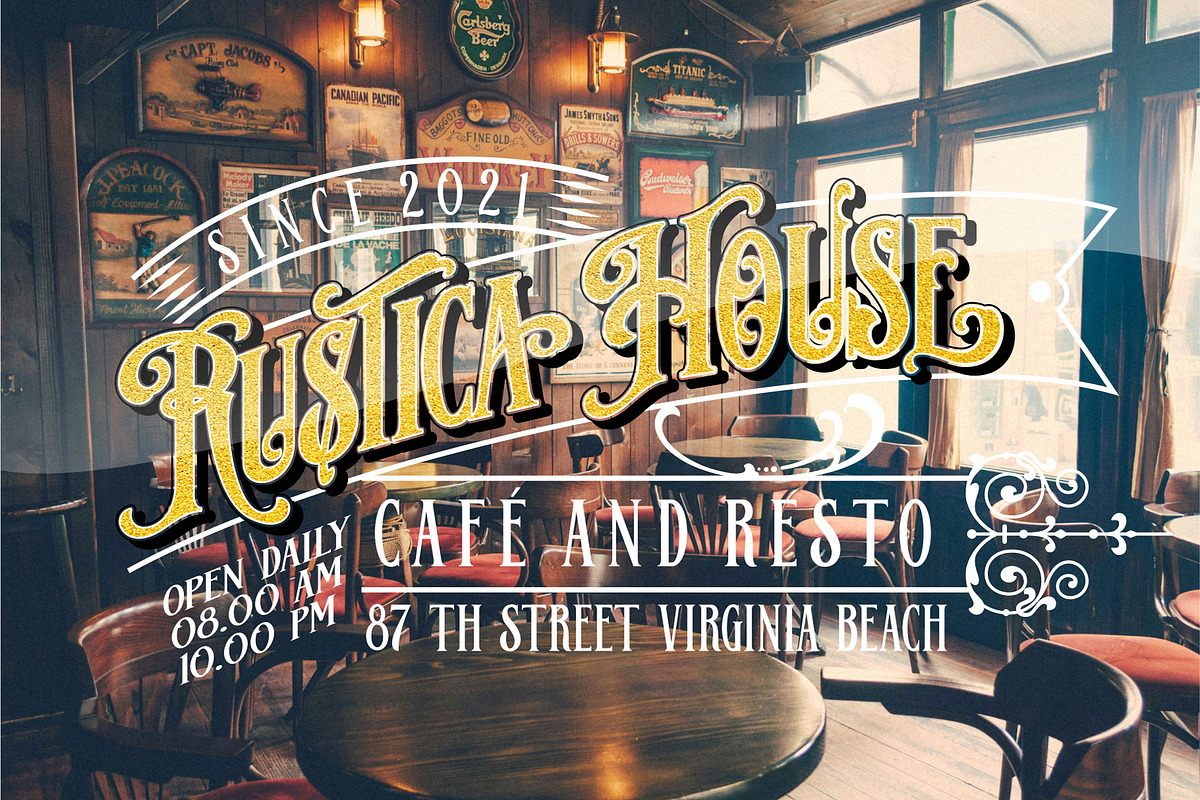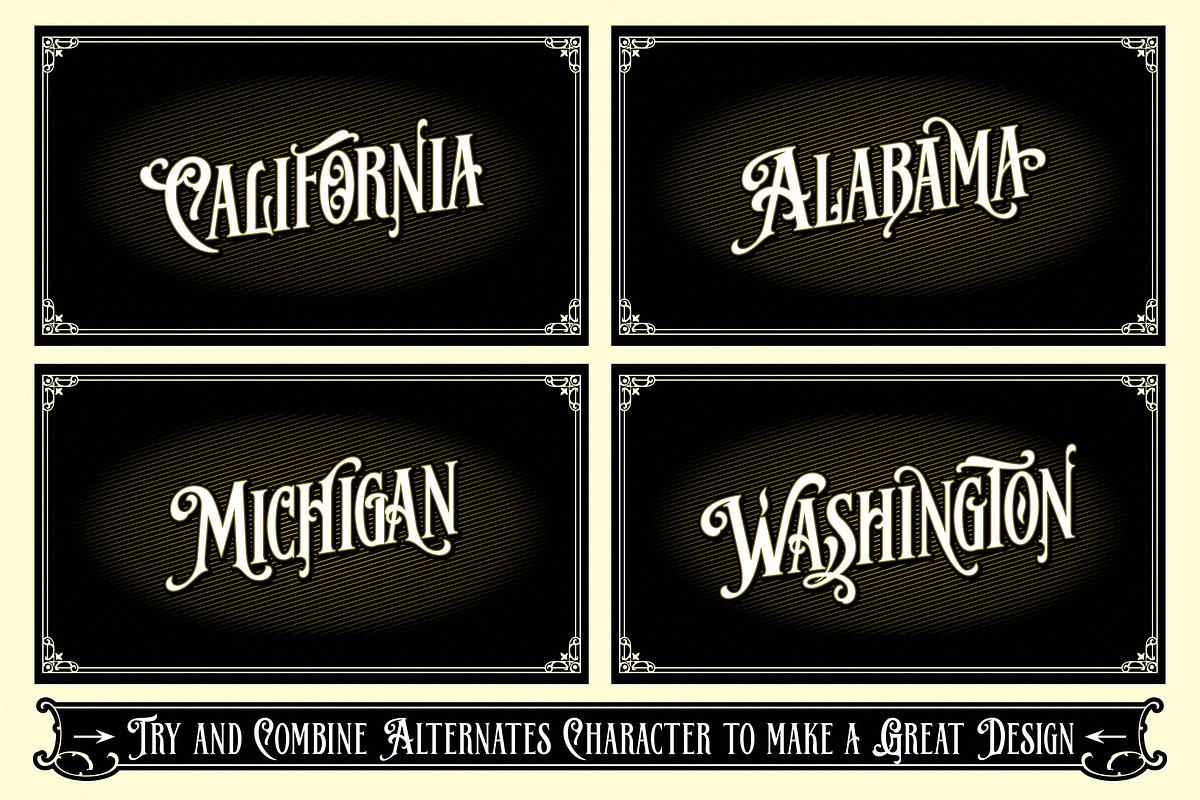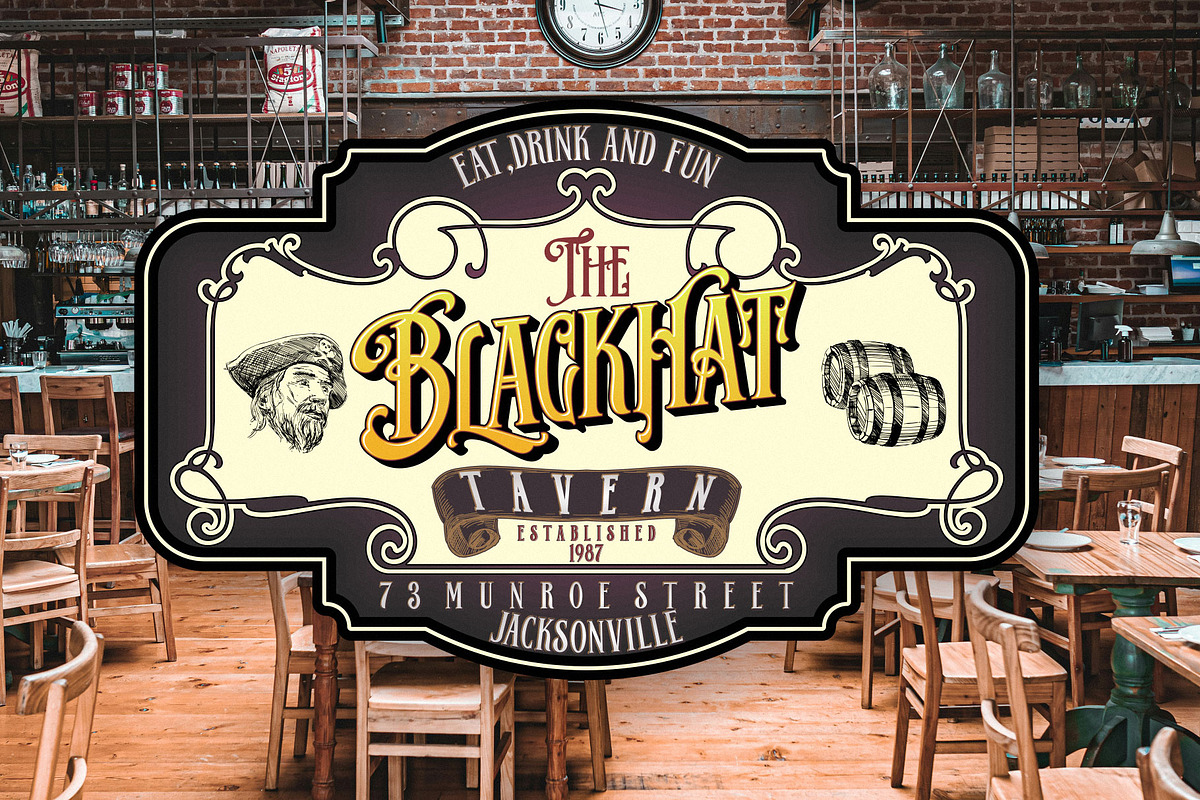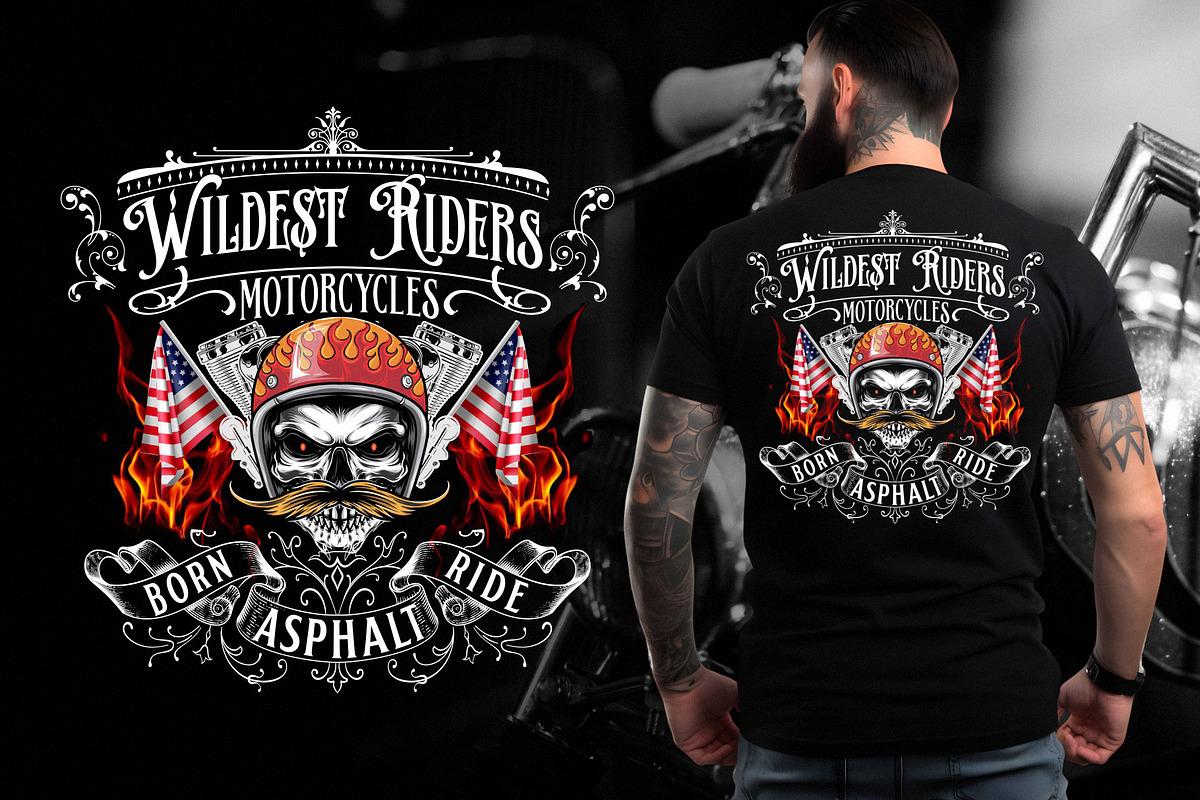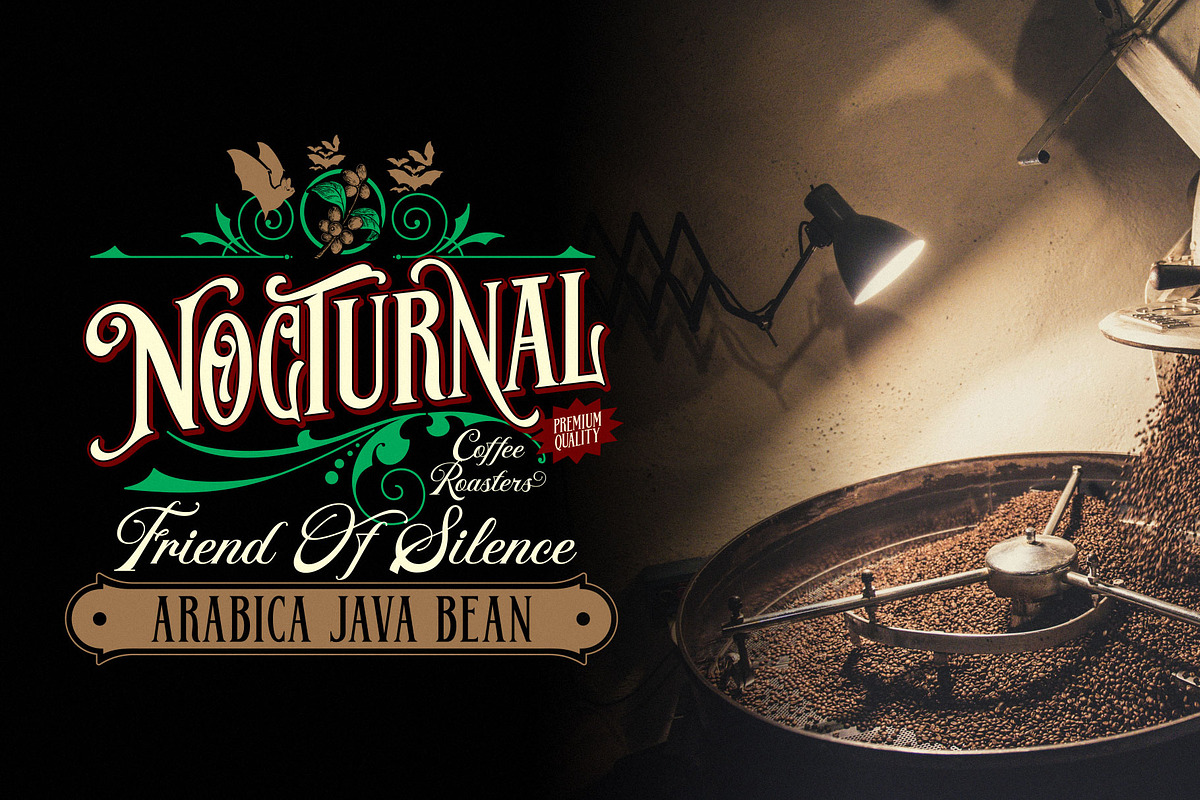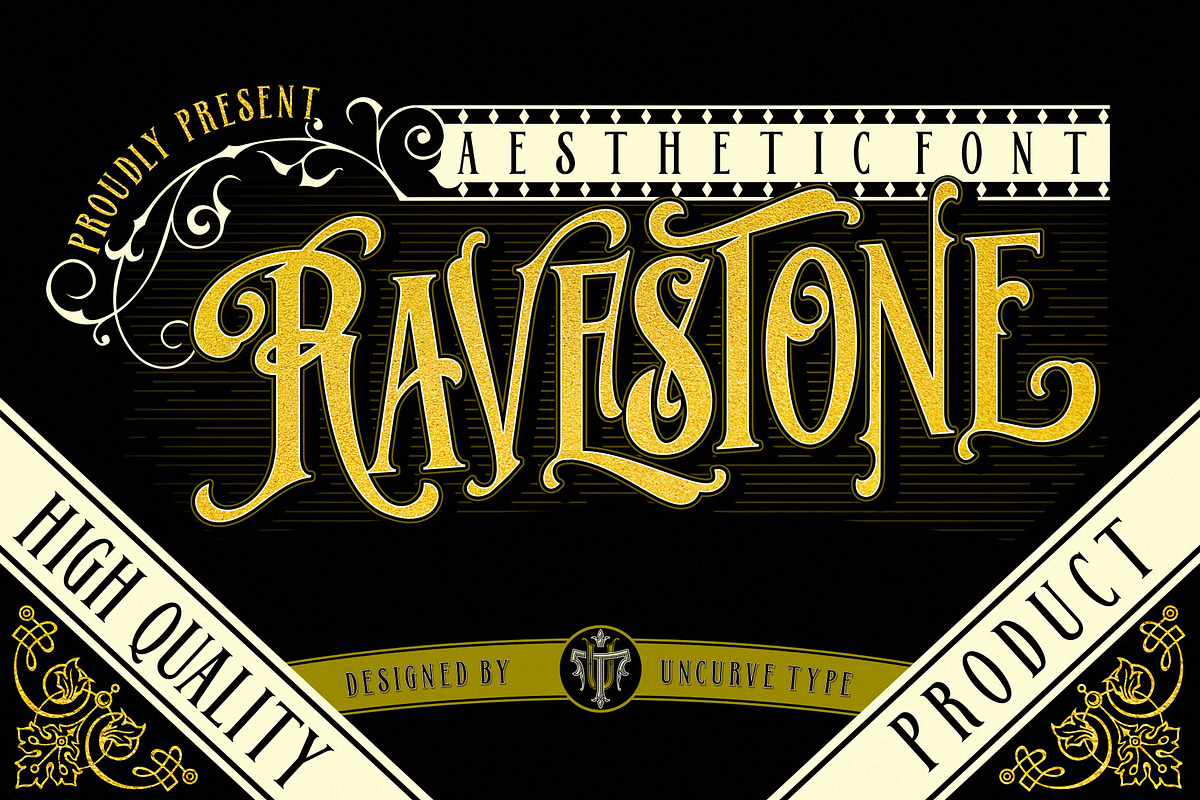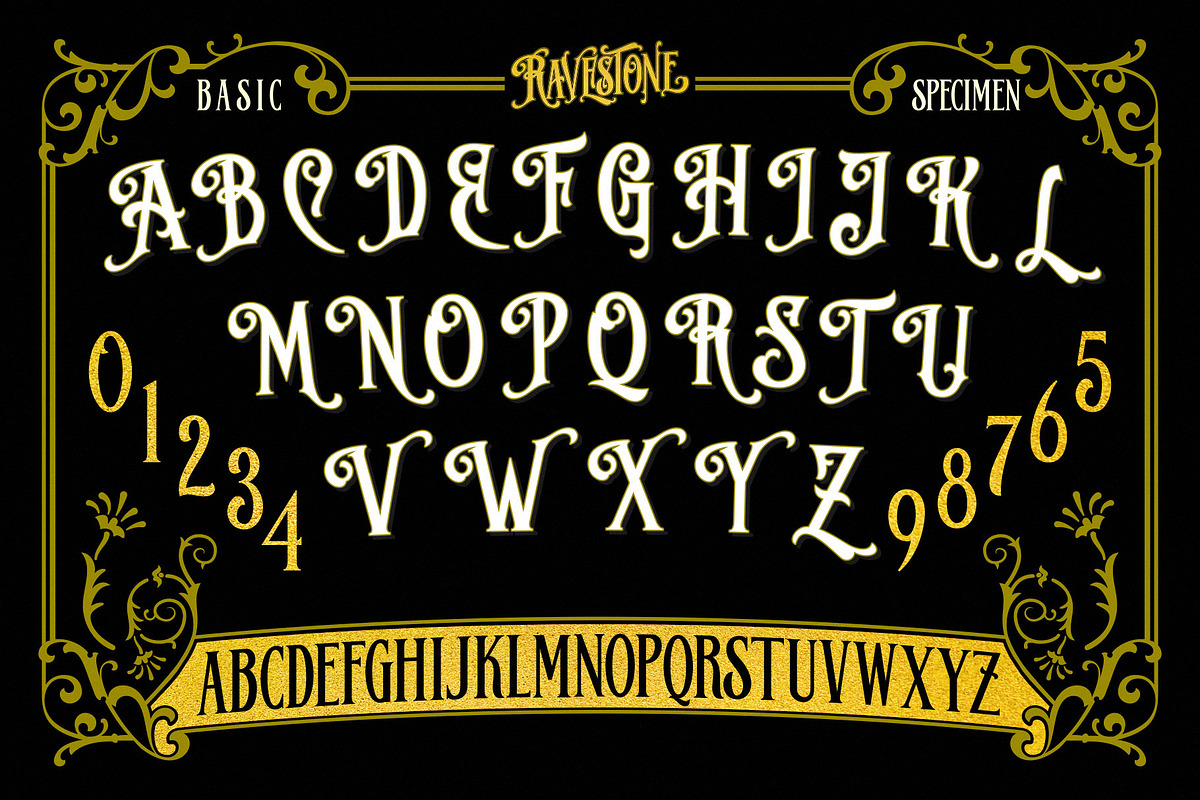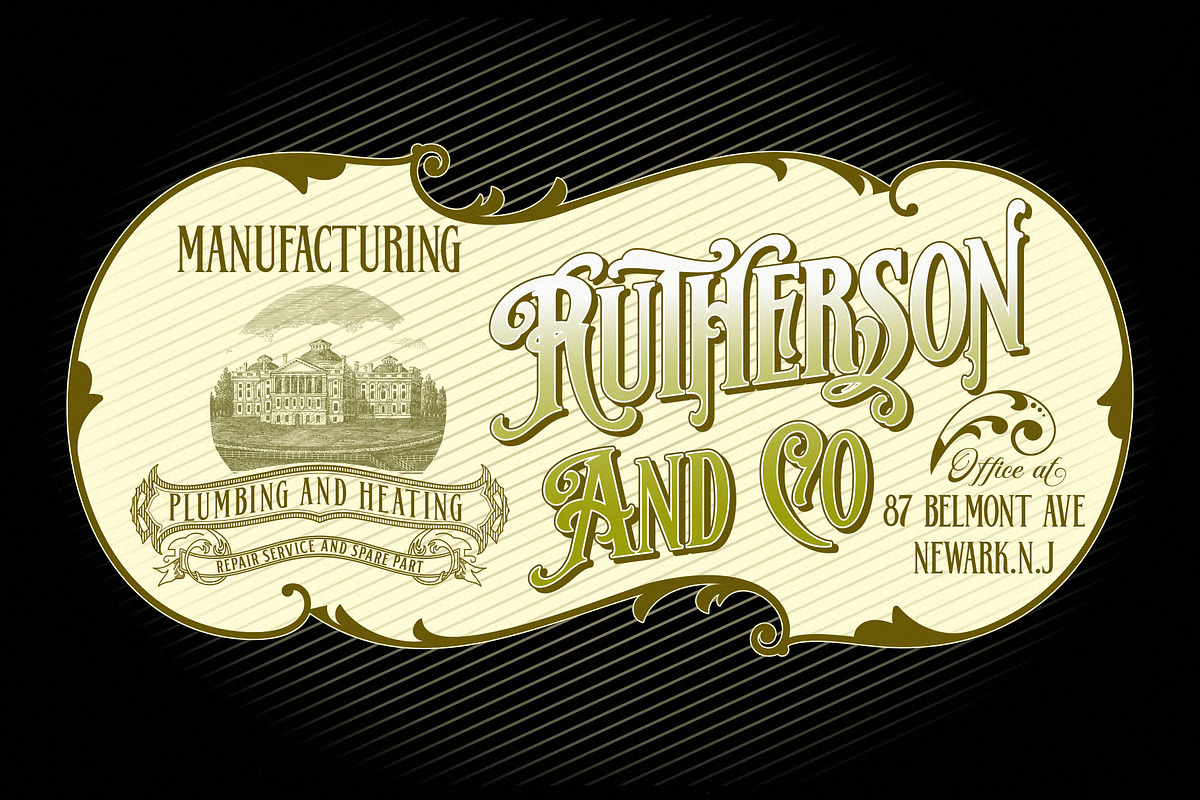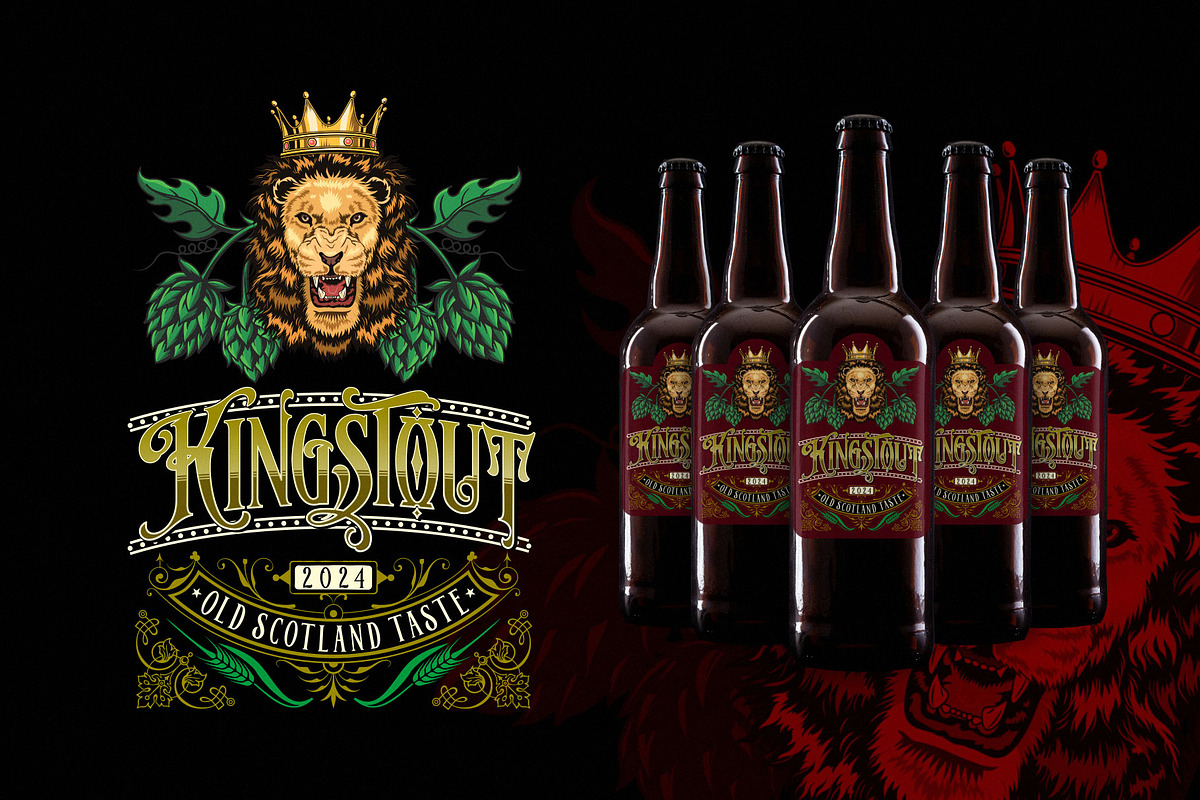
Ravestone
Introducing "Ravestone," a vintage ephemera font that encapsulates the timeless charm and elegance of bygone eras. Inspired by elegant signage, intricate gold leaf craftsmanship, nostalgic sign painting techniques, and the allure of old label products, Ravestone breathes new life into vintage typography.
With a myriad of alternate characters, Ravestone offers endless possibilities for creating captivating designs that demand attention. Its aesthetic appeal makes it a perfect choice for authentic logos, vintage design projects, Victorian lettering, headings, sign painting, posters, letterheads, branding materials, magazines, album covers, book covers, movies, apparel designs, flyers, label designs, product packaging, and much more.
Immerse yourself in the rich tapestry of history as Ravestone adds a touch of vintage authenticity to your projects. Whether you're designing a logo that exudes timeless elegance, crafting a poster that evokes nostalgia, or creating a magazine spread that transports readers to a bygone era, Ravestone provides the perfect blend of sophistication and nostalgia.
Combine Ravestone with complementary fonts such as scripts, serifs, or sans serifs, and unleash your creativity to create stunning designs that leave a lasting impression. With a touch of effects and finesse, Ravestone transforms ordinary projects into extraordinary masterpieces, ensuring your designs stand out in today's competitive landscape.